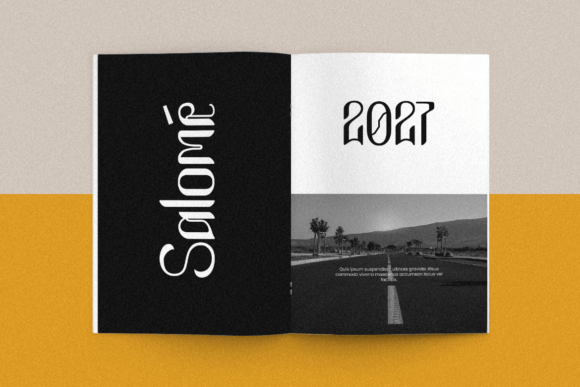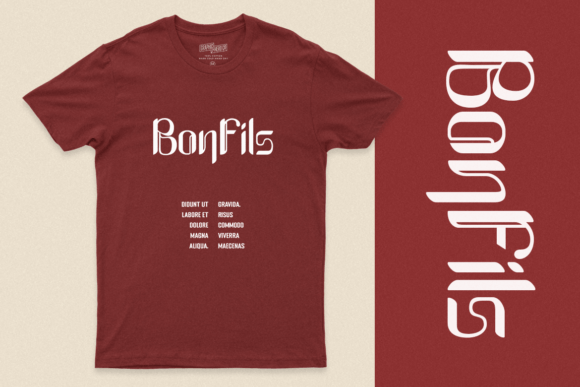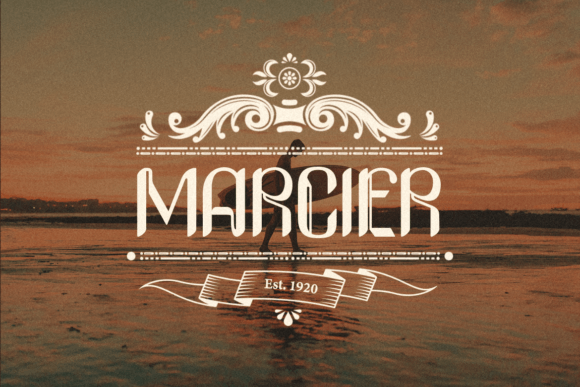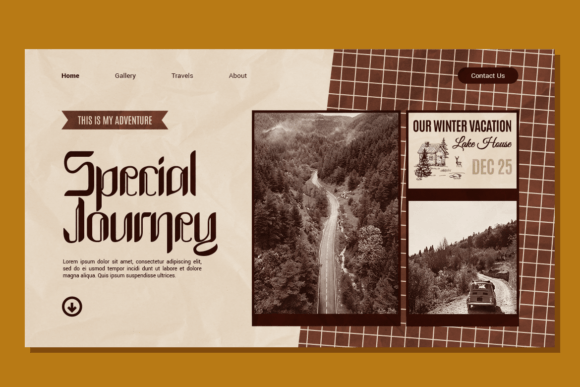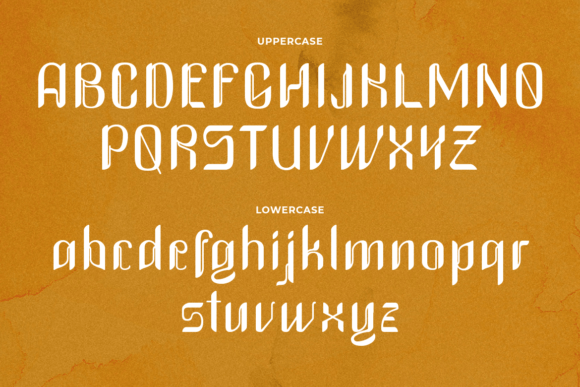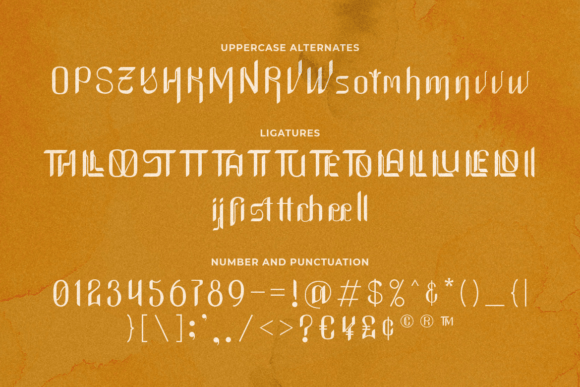
Introducing Brighton Font: A Timeless Retro Display with a Vintage Twist
Are you on the hunt for a font that exudes a sense of nostalgia and classic charm? Look no further than Brighton Font, a stunning retro display font that’s perfect for adding a touch of vintage elegance to your designs. With its antique vibe and refined aesthetic, Brighton is ideal for a wide range of creative projects, from branding and logos to wedding designs, social media posts, and more.
The Perfect Blend of Style and Sophistication
Brighton Font boasts a unique and captivating style that’s sure to elevate your designs to the next level. Its retro charm is balanced with a refined and sophisticated aesthetic, making it perfect for projects that require a touch of elegance and poise. Whether you’re working on a logo, invitation, or product packaging, Brighton Font is sure to make a lasting impression.
One of the best things about Brighton Font is its versatility. This incredible font can be used for a wide range of creative projects, including:
- Branding projects: Create a lasting impression with your brand’s logo, packaging, and marketing materials.
- Wedding designs: Add a touch of vintage romance to your wedding invitations, stationery, and decorations.
- Social media posts: Stand out on social media with eye-catching graphics and typography.
- Advertisements: Create attention-grabbing ads that showcase your brand’s personality and style.
- Product packaging: Elevate your product’s packaging with a touch of elegance and sophistication.
- Product designs: Add a unique and stylish touch to your product designs, from labels to watermarks.
- Invitations: Create beautiful and memorable invitations for any occasion.
- Stationery: Add a touch of classic charm to your stationery, from business cards to letterheads.
Why Choose Brighton Font?
So why choose Brighton Font for your next creative project? Here are just a few reasons why this incredible font stands out:
- Unique and captivating style that’s sure to turn heads.
- Retro charm with a refined and sophisticated aesthetic.
- Endless creative possibilities, from branding to wedding designs and more.
- Perfect for designers, crafters, and anyone looking to add a touch of vintage elegance to their designs.